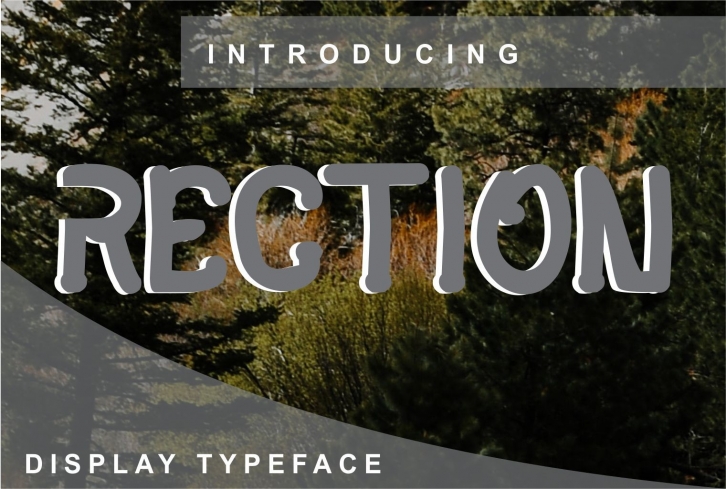
Rection is a clean and adaptable display font. Whatever the topic, this font will be a wonderful asset to your font library, as it has the potential to enhance any creation.